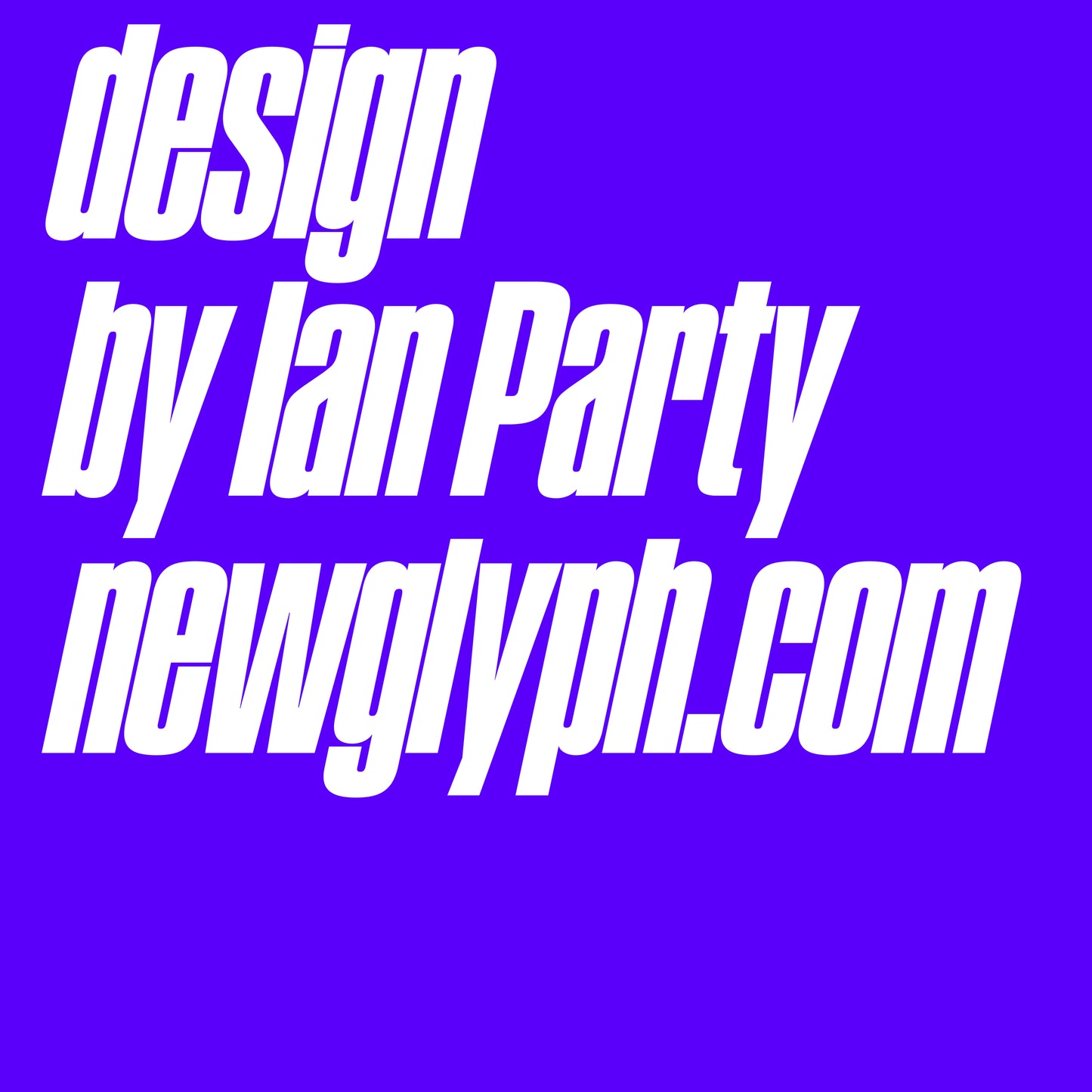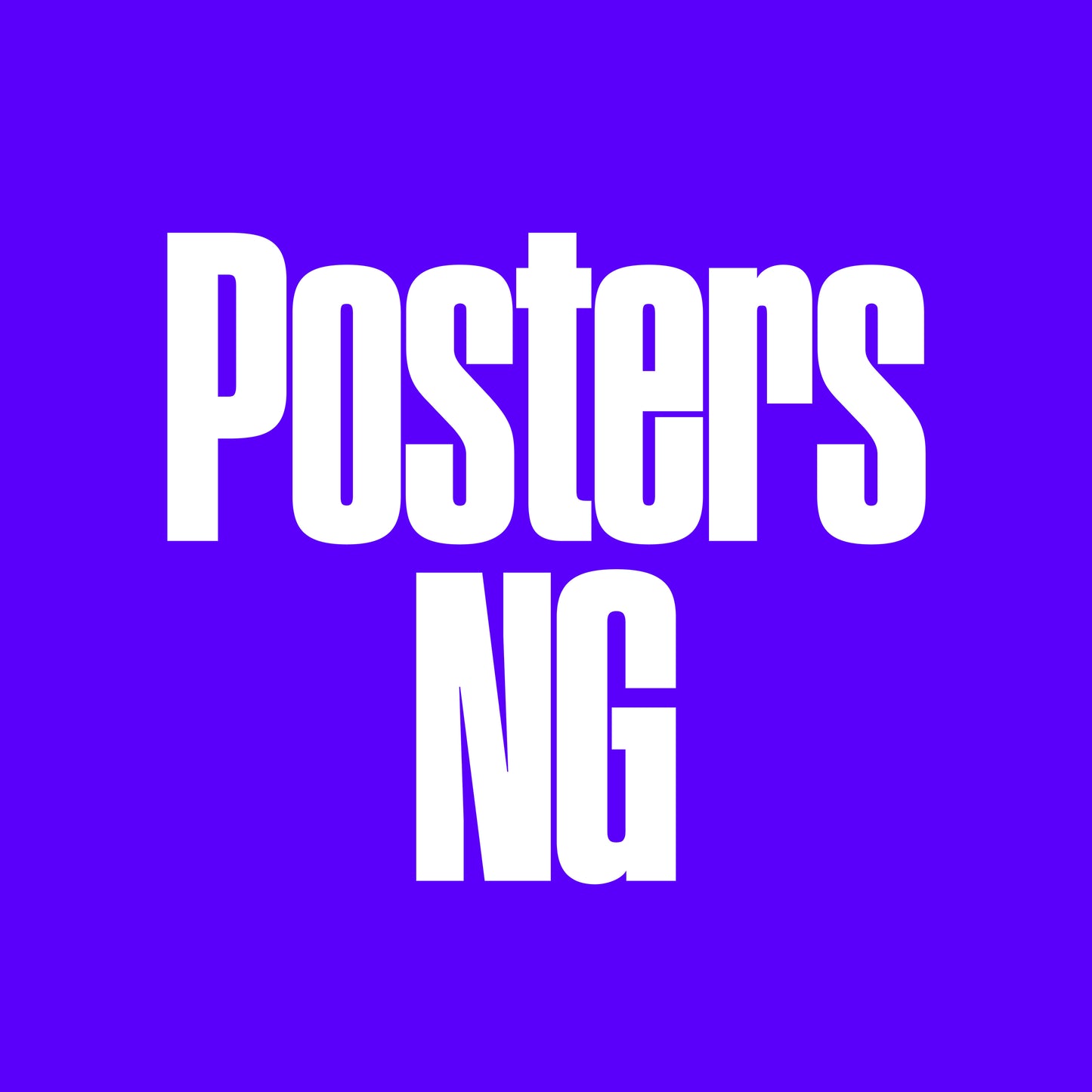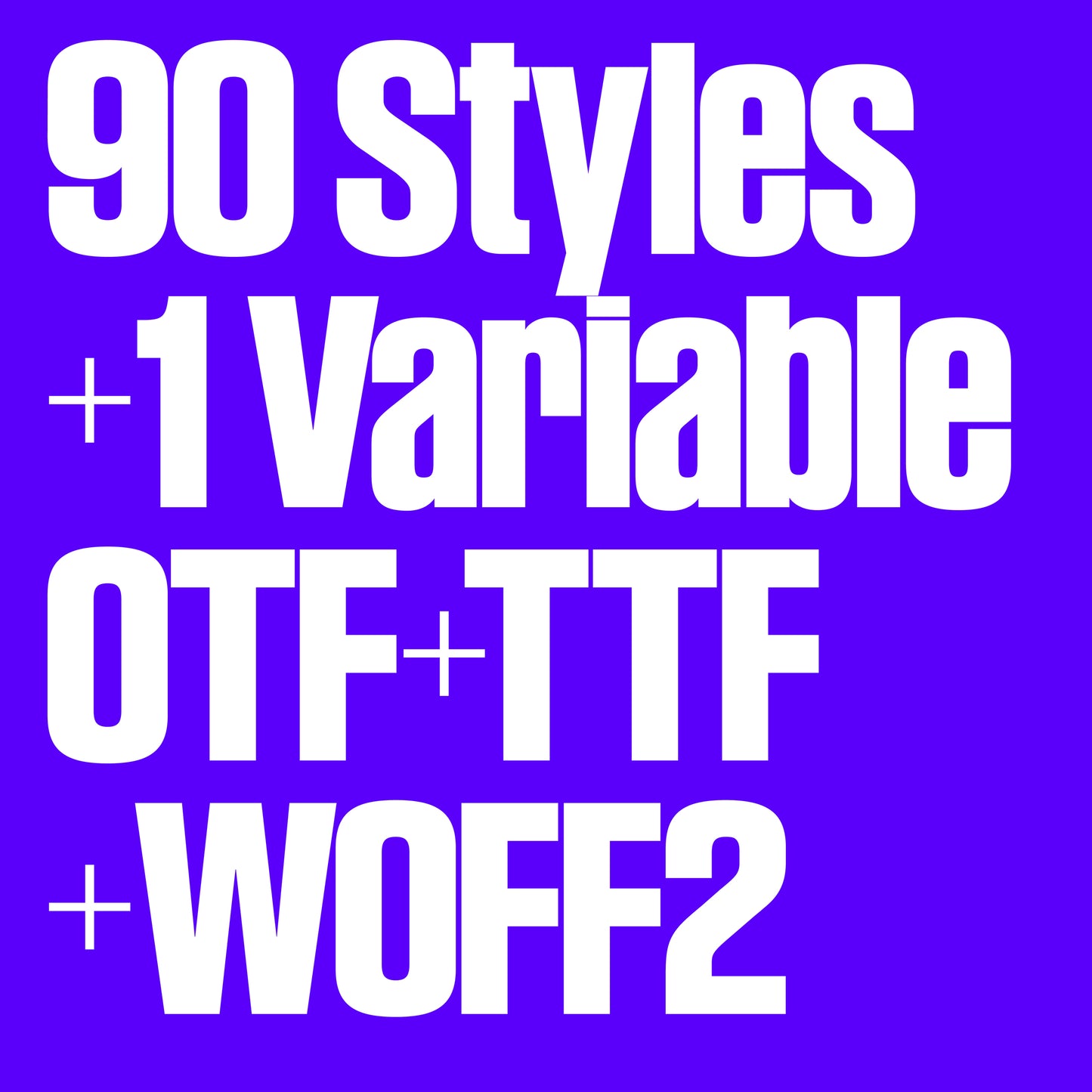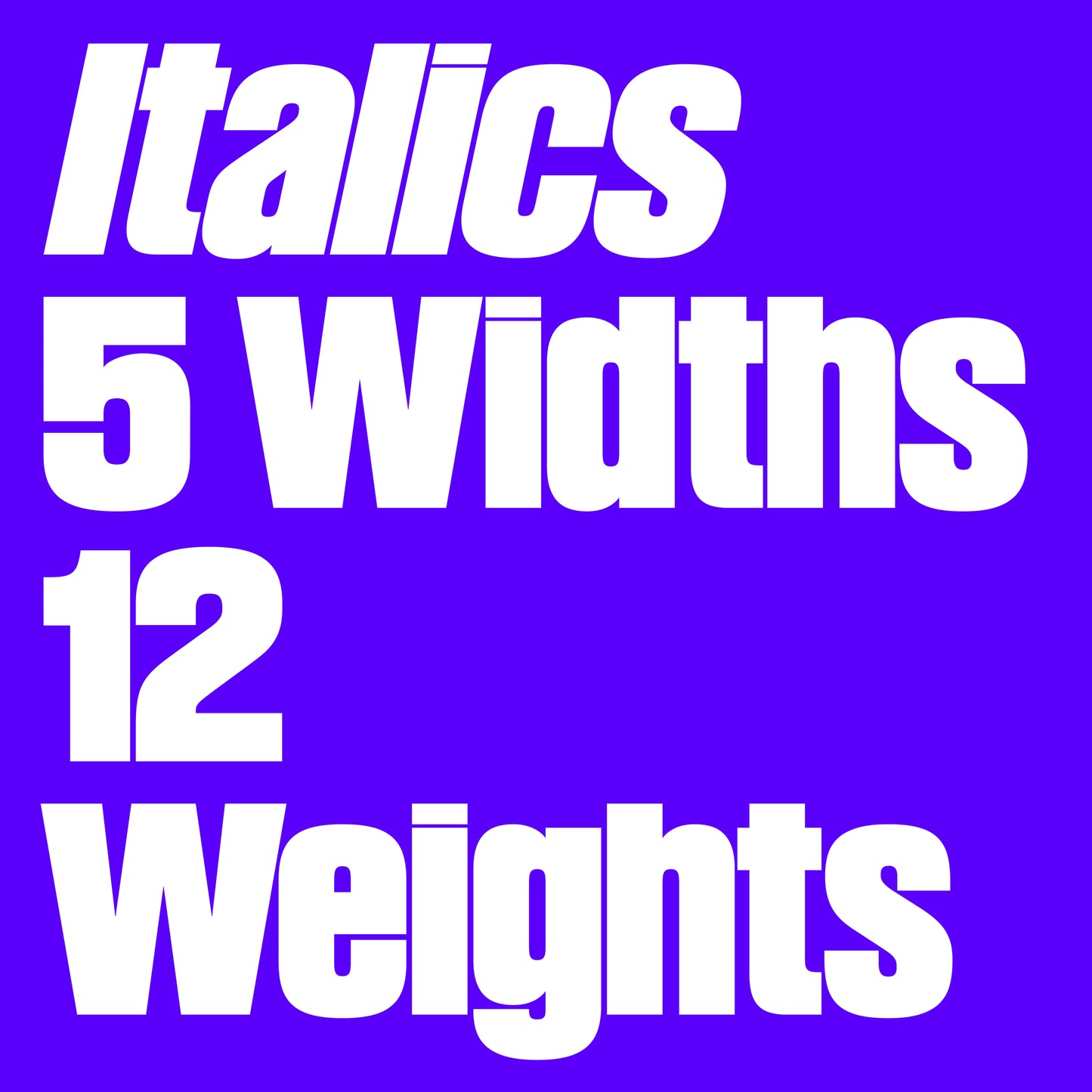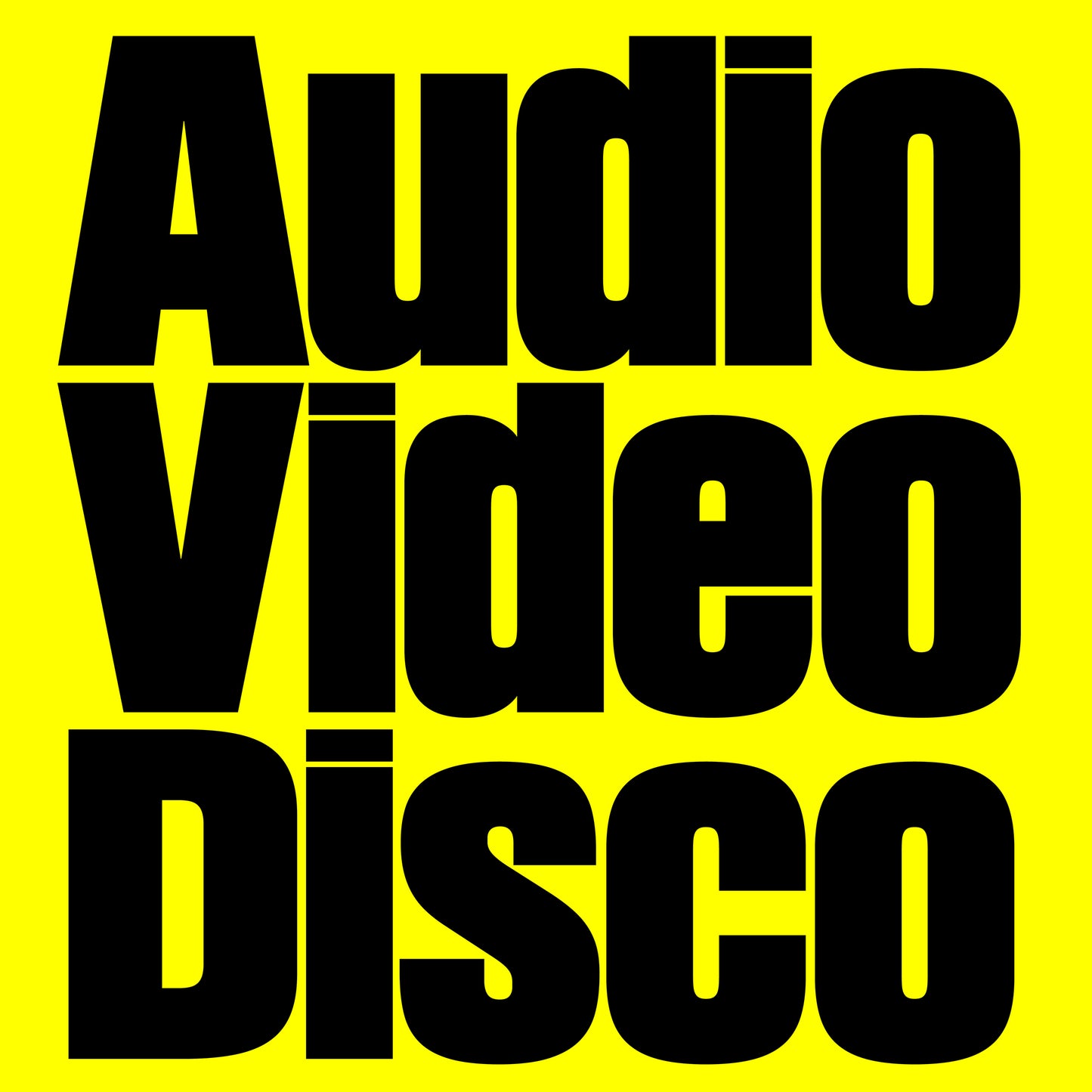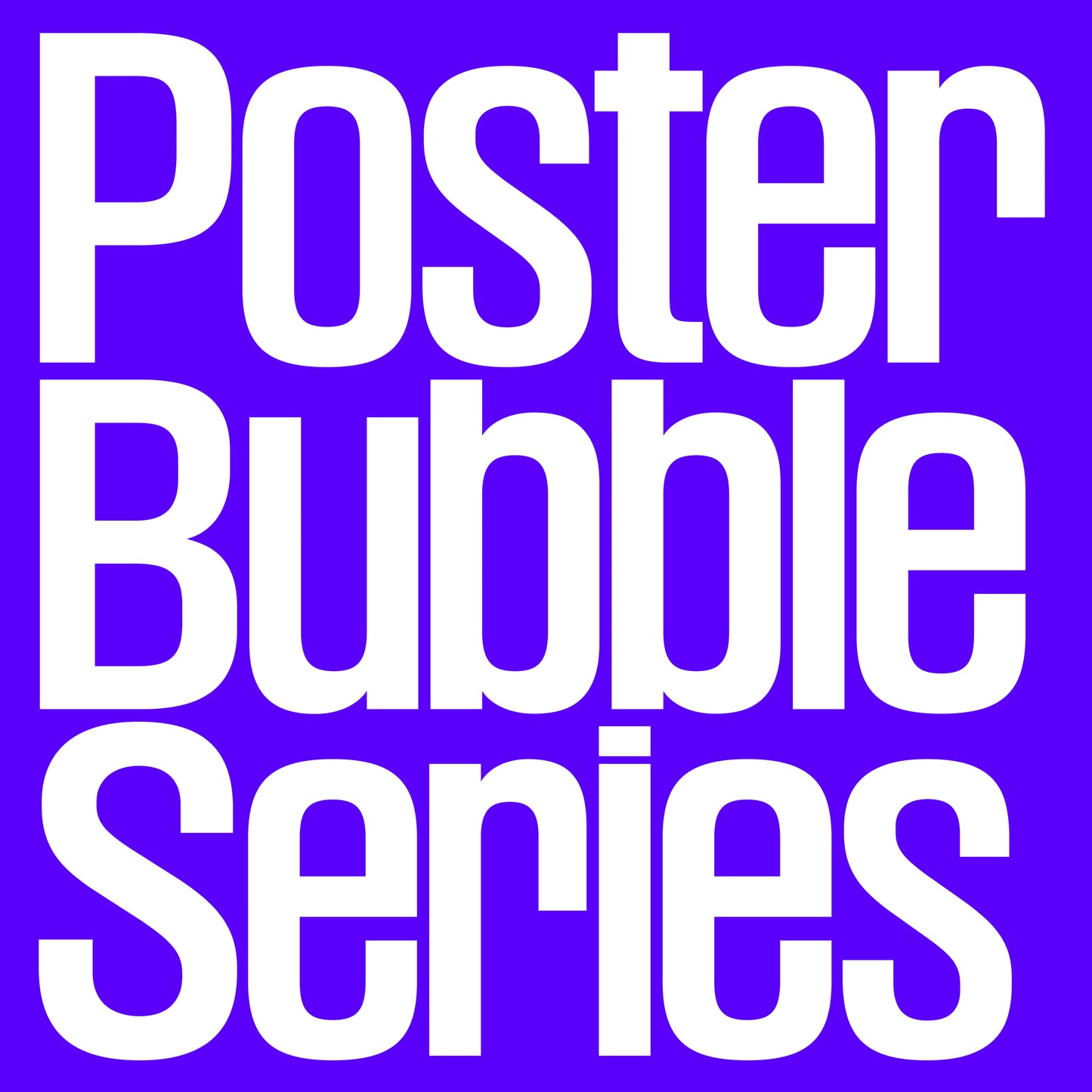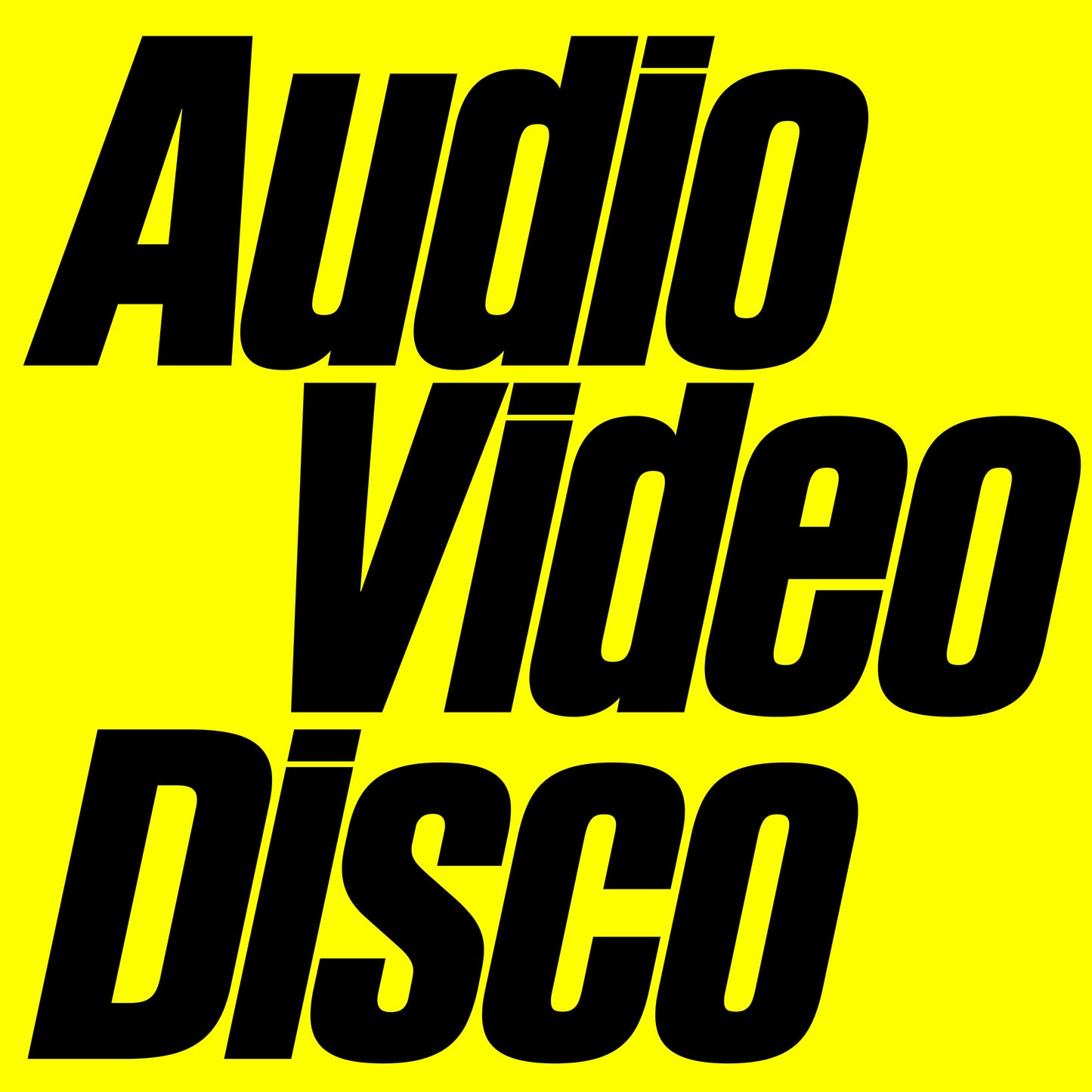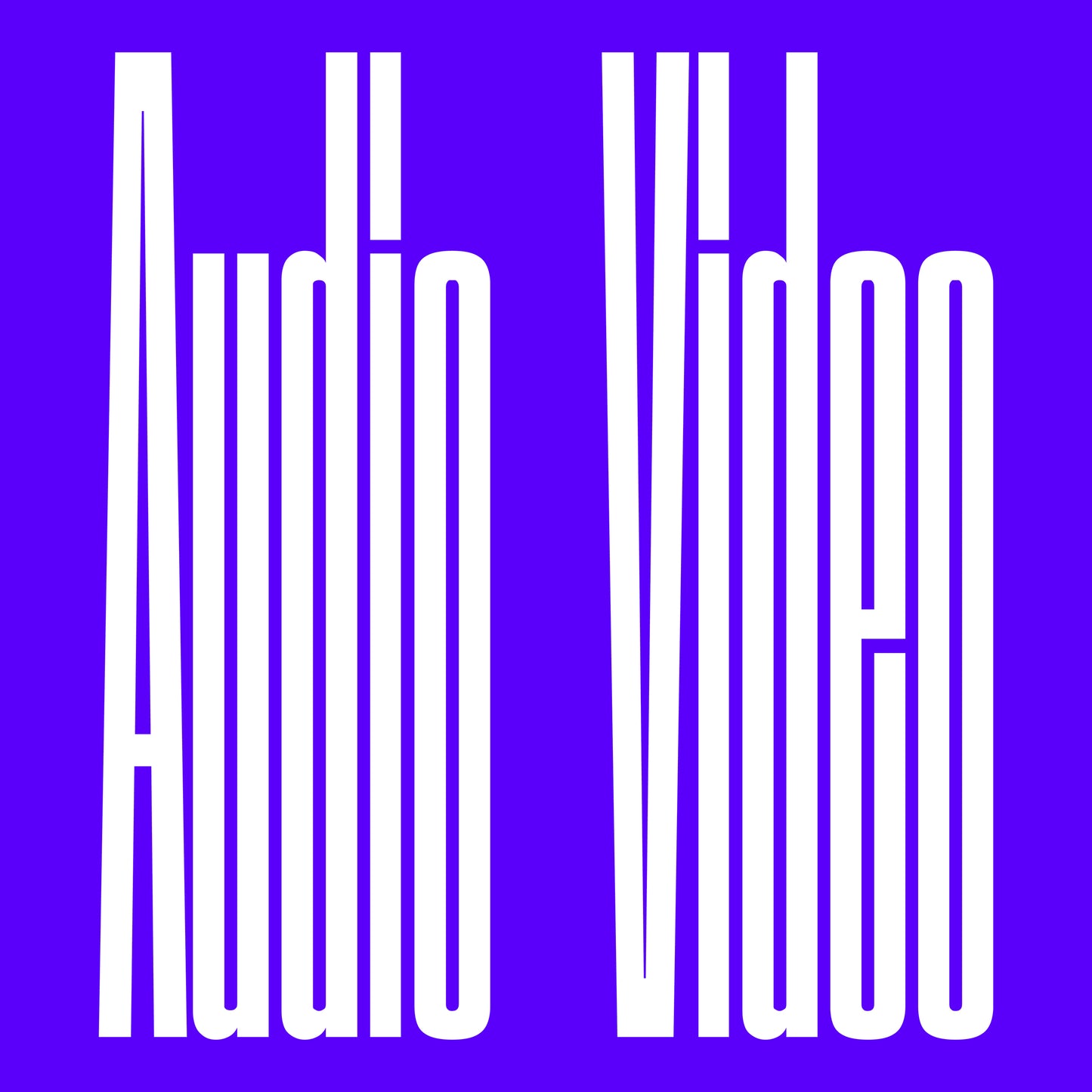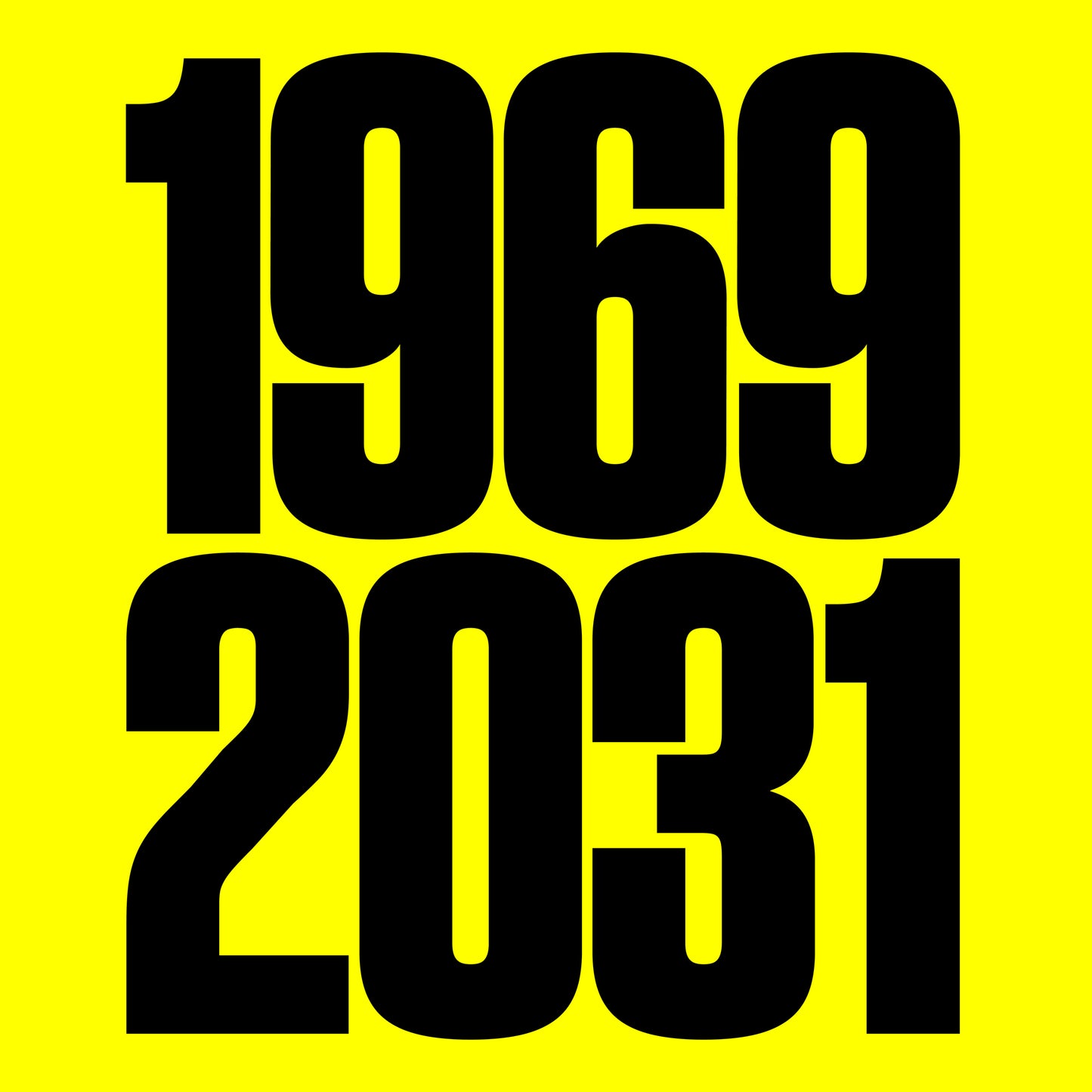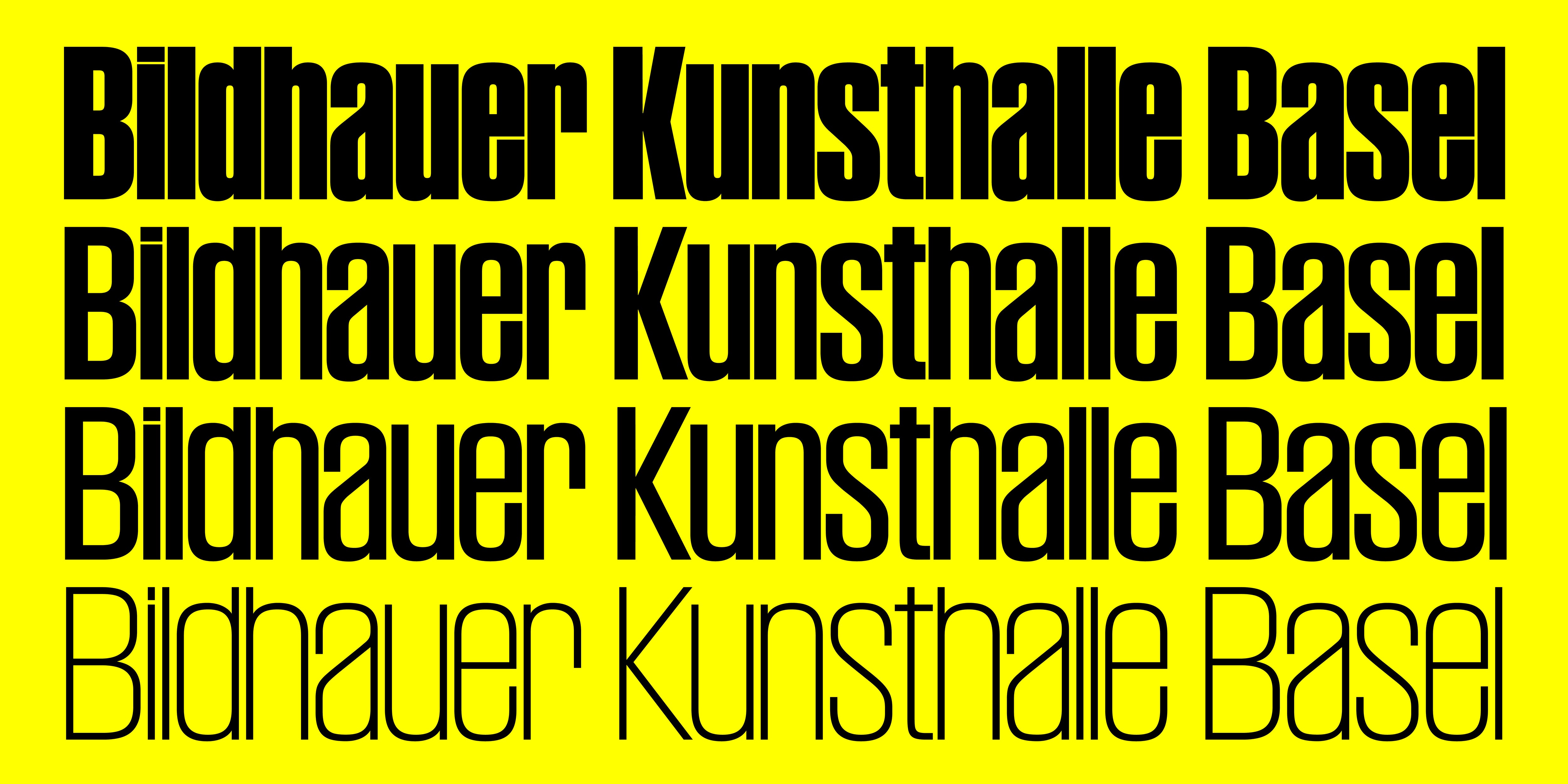
Posters NG
Posters, designed by Ian Party, is a variable condensed grotesque that draws inspiration from the bold typographic language of Swiss modernist poster design. Rooted in the legacy of mid-century Swiss typography, it pays tribute to the clean lines, grid-based layouts, and striking compositions that defined the International Typographic Style.
Designed for maximum visual impact, Posters refines the geometric and functional essence of classic neo-grotesques, compressing their power into a sleek, space-efficient form. Its variable font capabilities offer seamless control over weight and width, making it the perfect tool for designers looking to craft high-energy layouts with a bold, modernist edge.
From posters and editorial spreads to branding and digital interfaces, Posters delivers tight spacing, sharp proportions, and undeniable presence, ensuring that every word demands attention.
— VARIABLE
— ITALICS
— REGULAR, CONDENSED, EXTENDED STYLES
— PUNCTUATION & SYMBOLS
— DIACRITICS & LIGATURES